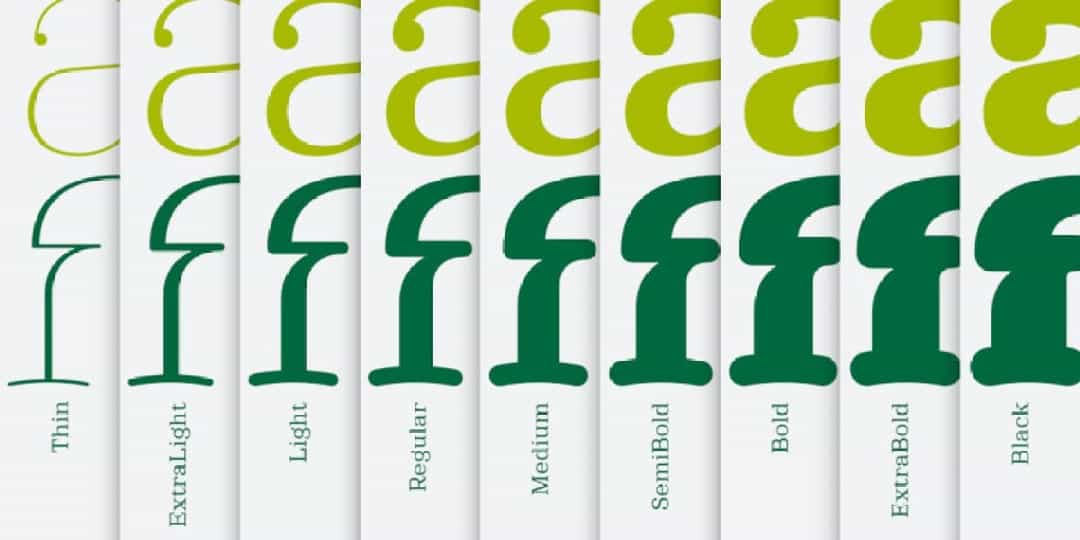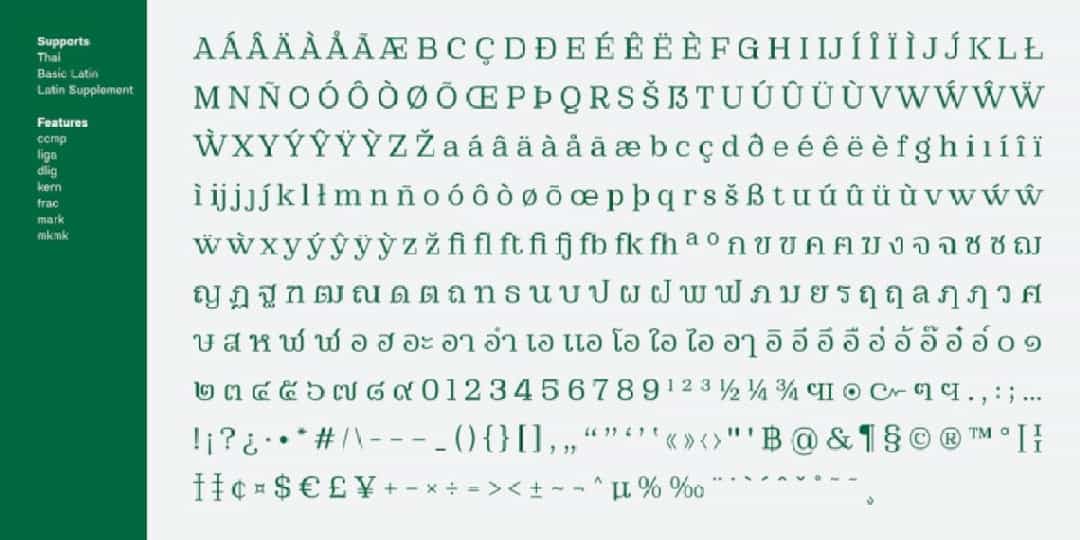
Phongphrai, created by Jipatype and available for free download and private use, can be described as a premium serif font. This version includes all lowercase letters as well as some unique characters for personal use.